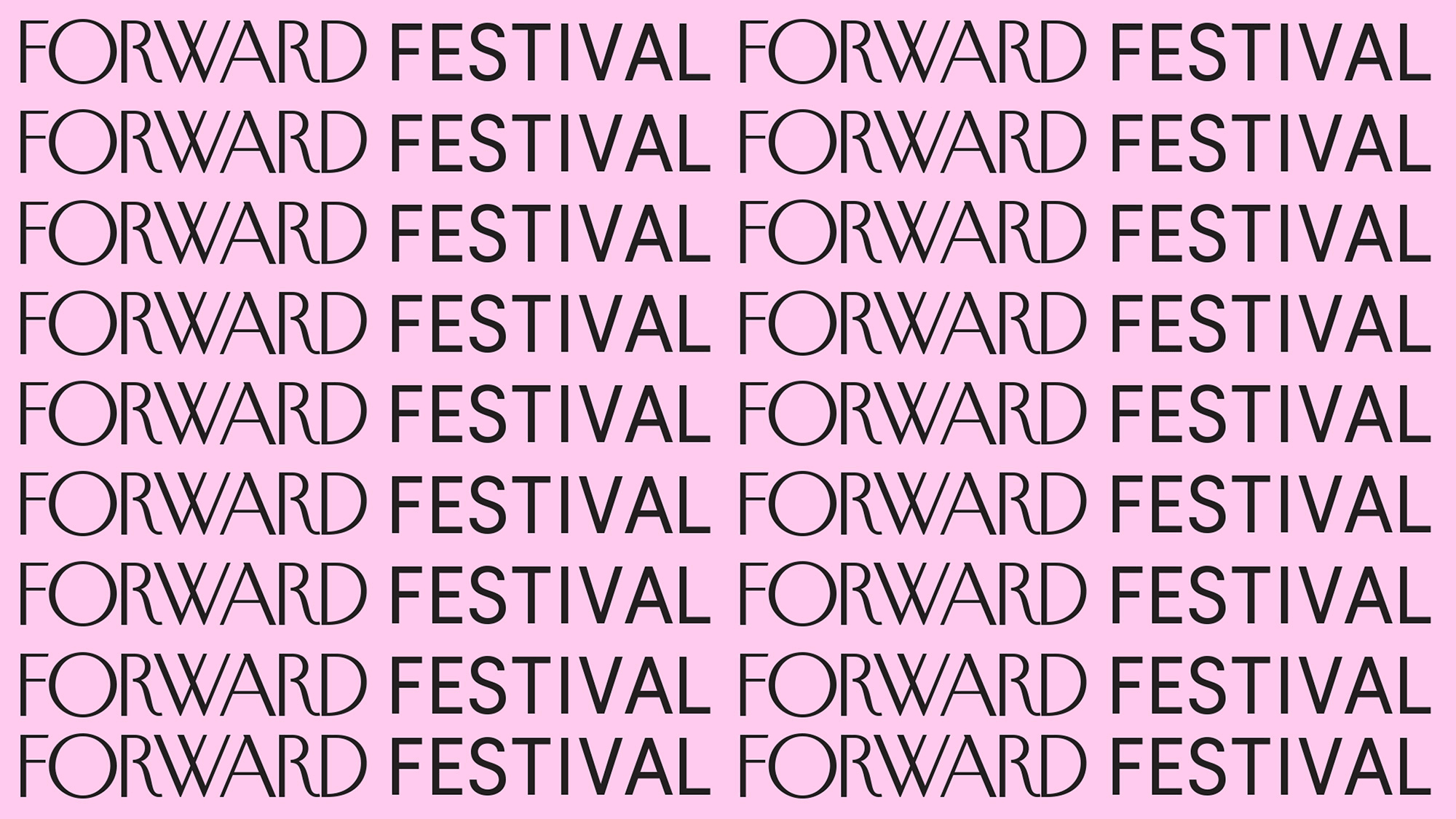
Zwupp, Forward Festival branding
And finally, the designers at Zwupp sent along some nice new work for Forward Festival 2018, an event that brings together creative industry folks across Vienna, Munich, and Hamburg. The identity plays with the festival theme of “construct-deconstruct” with a ripped-paper aesthetic, repetitive type, and a pastel color palette.